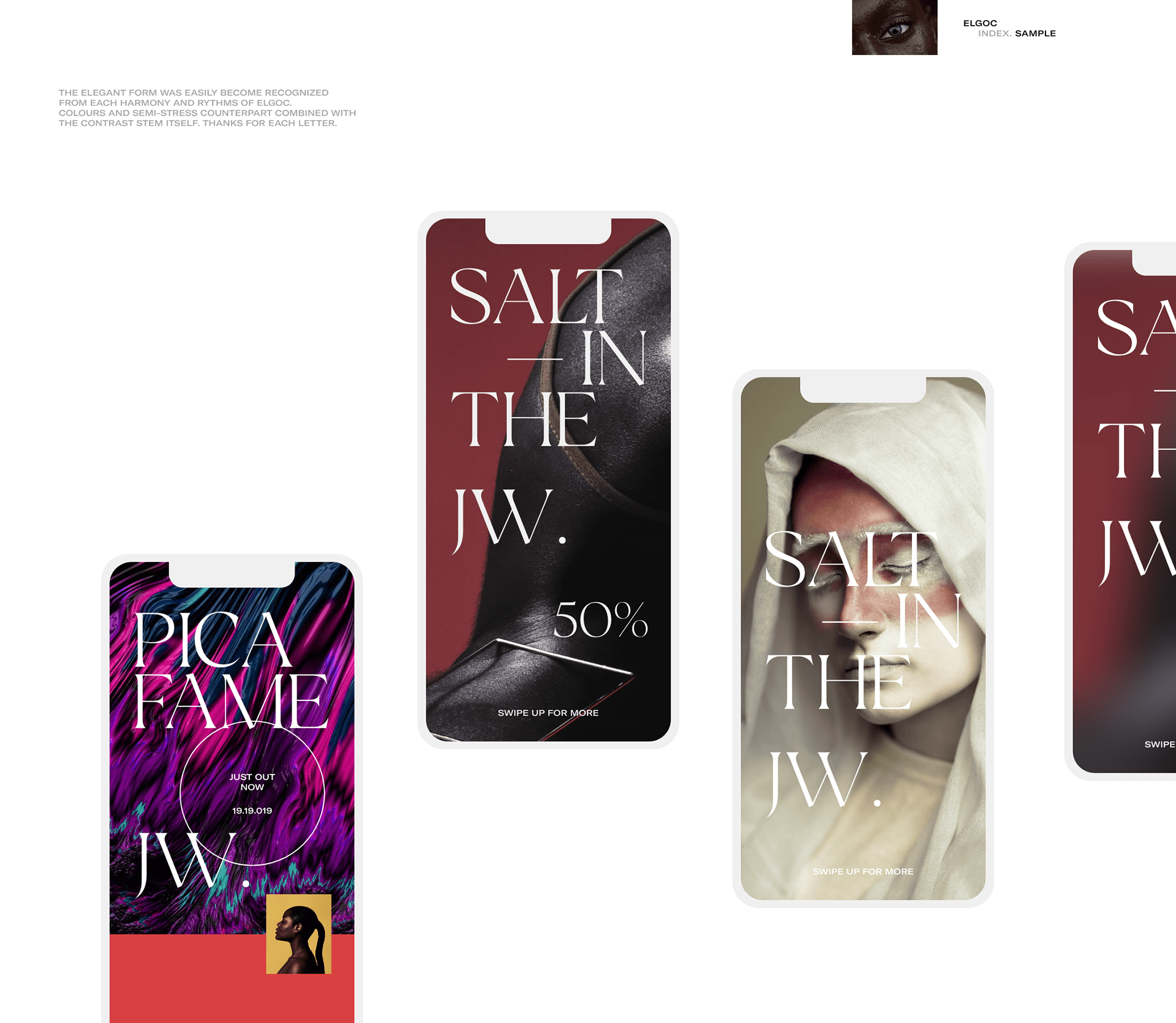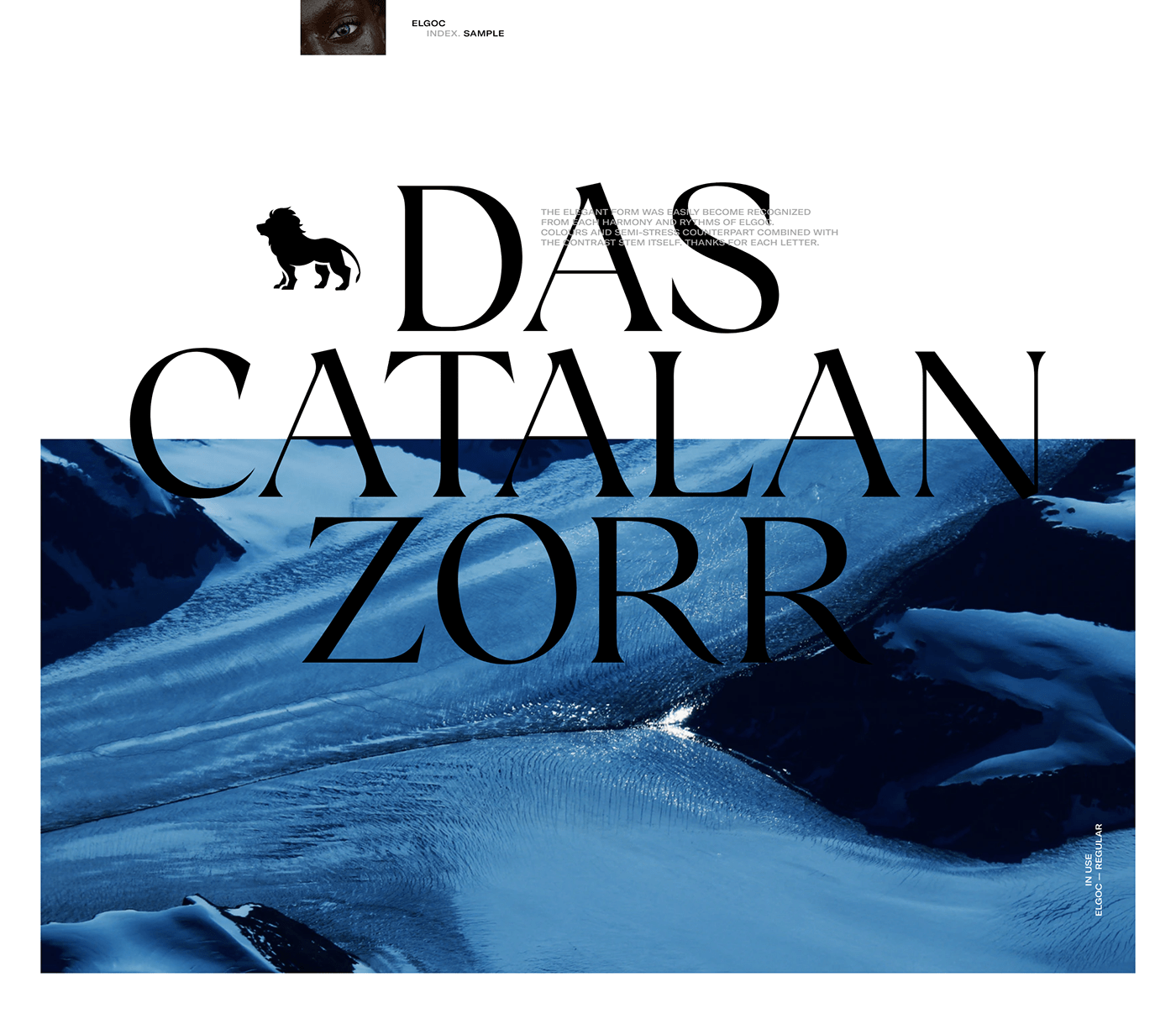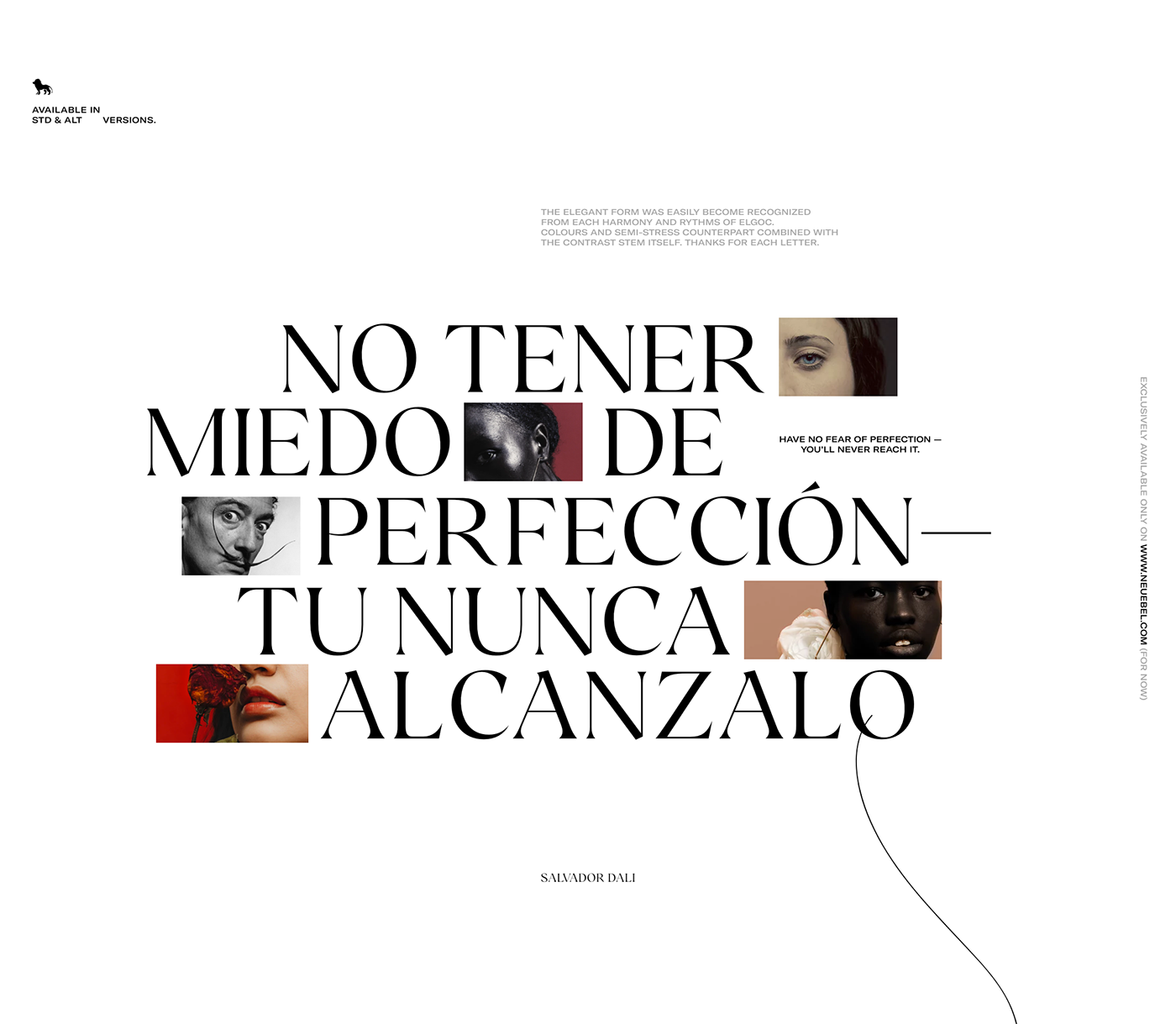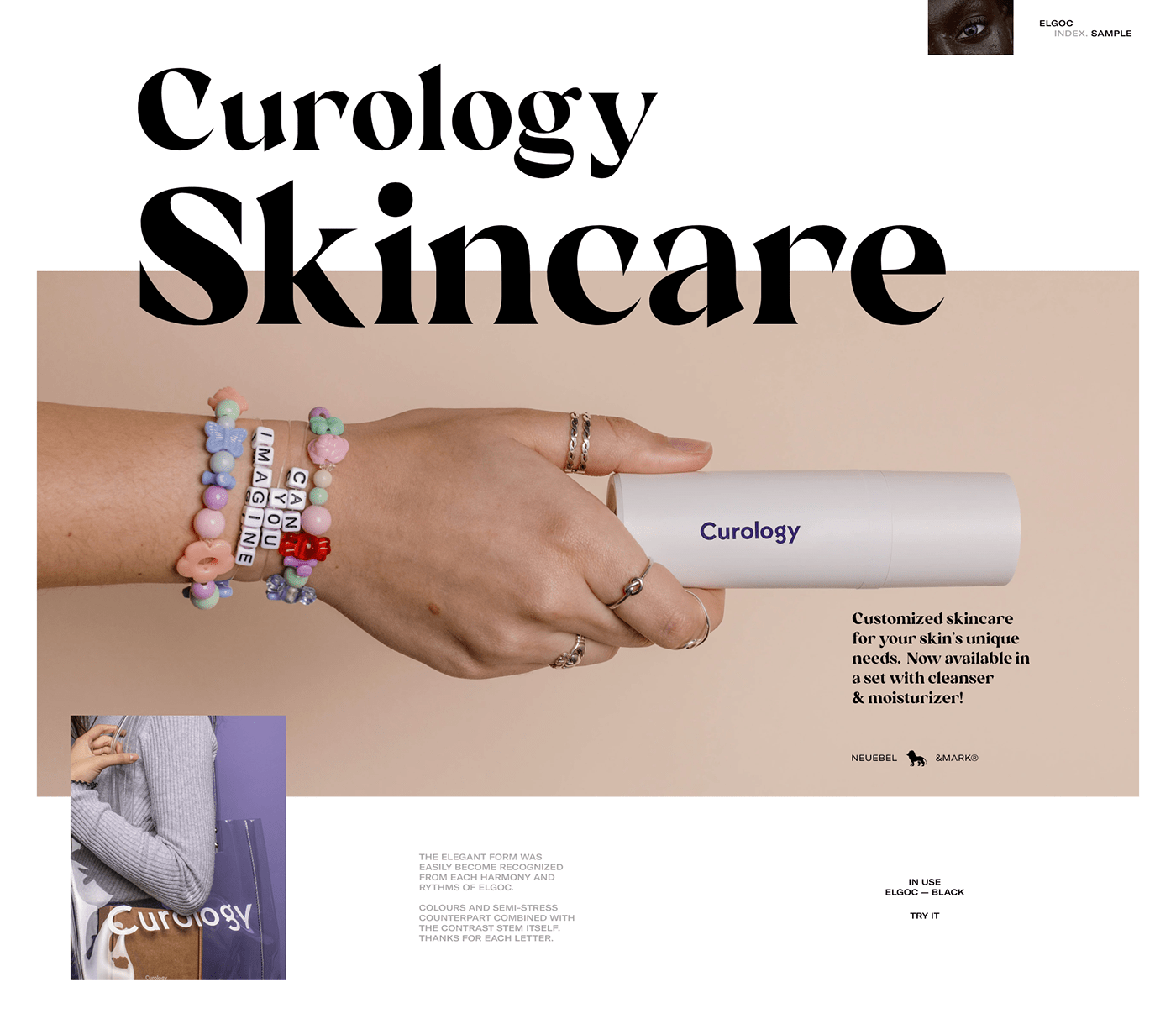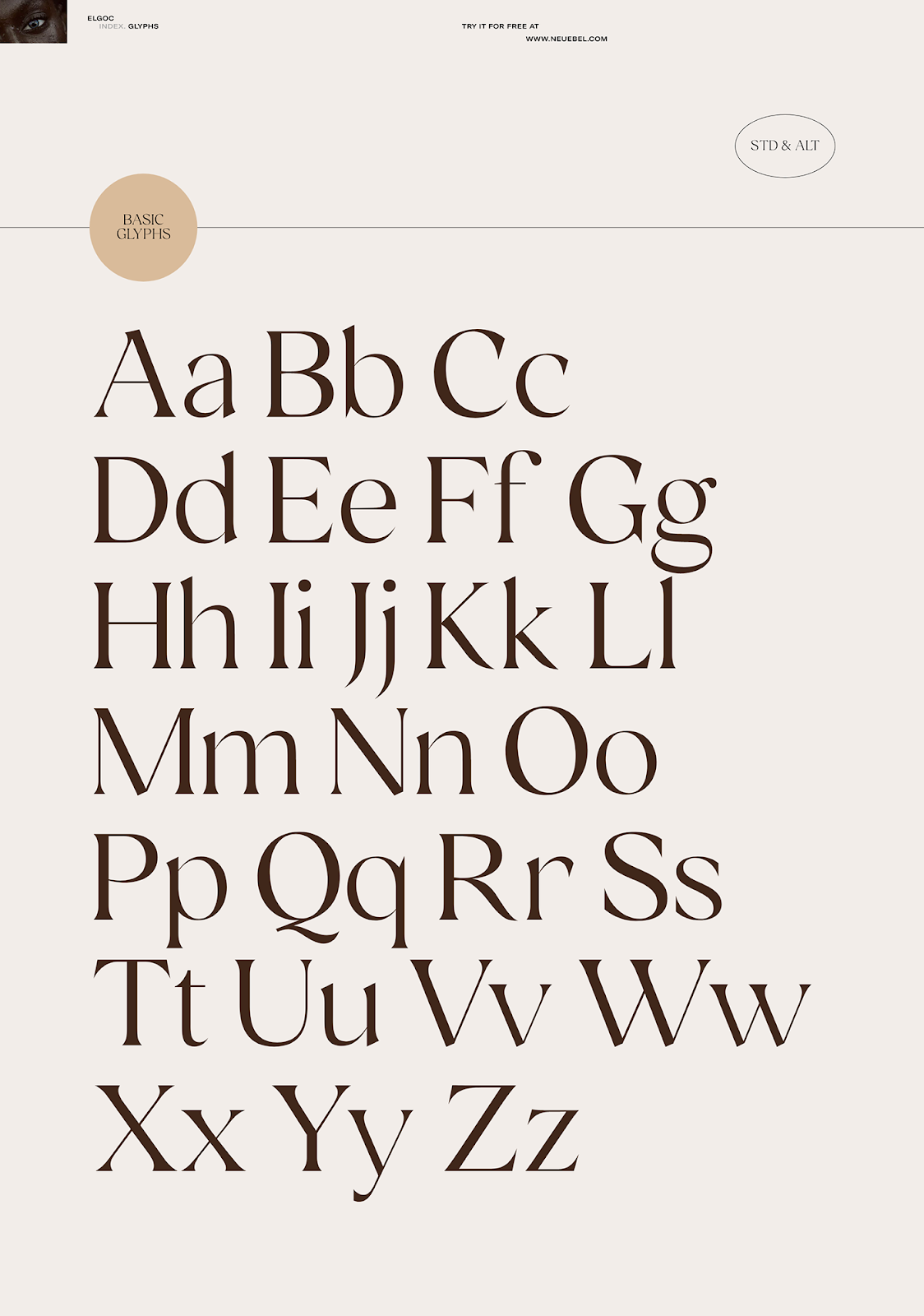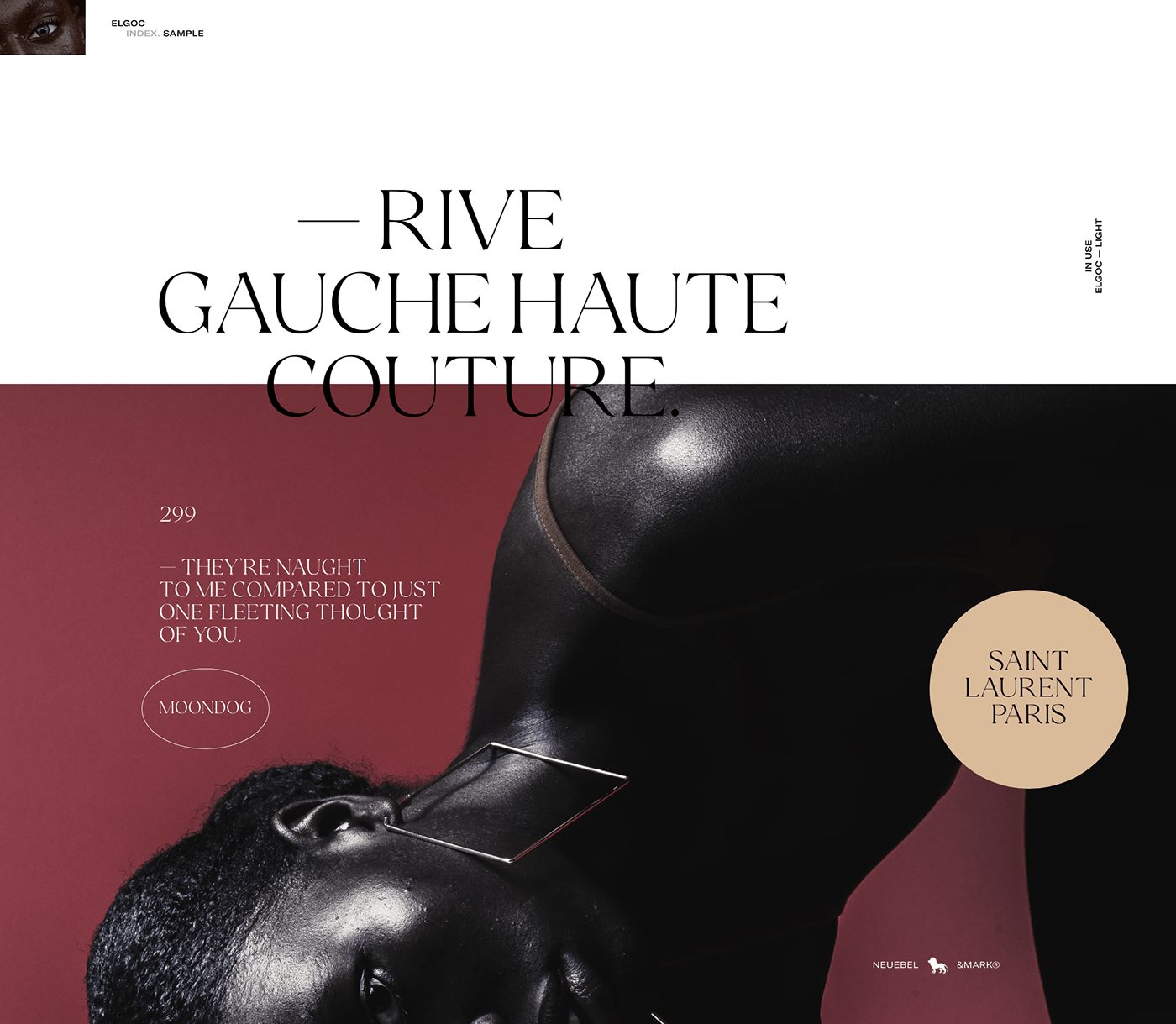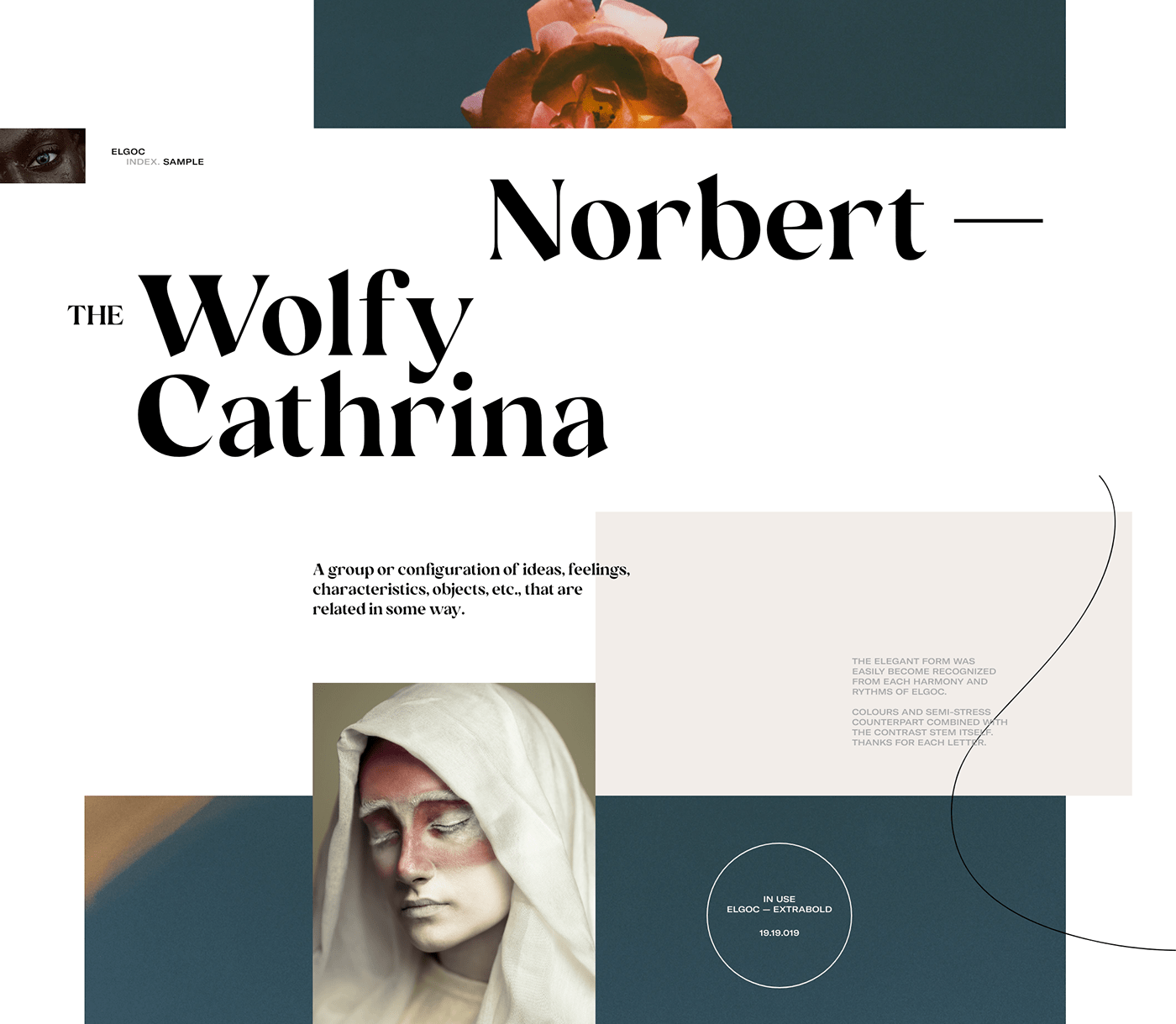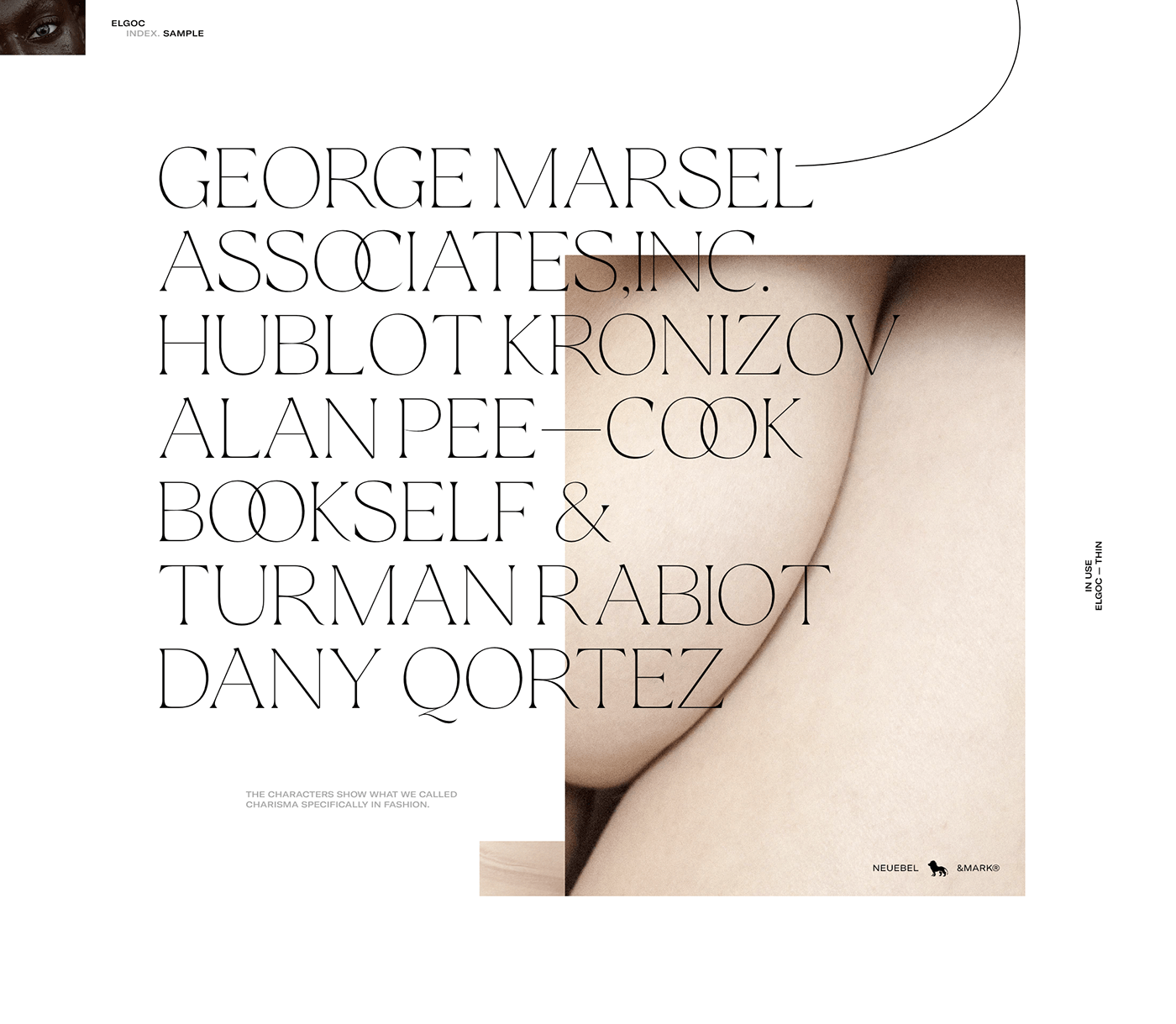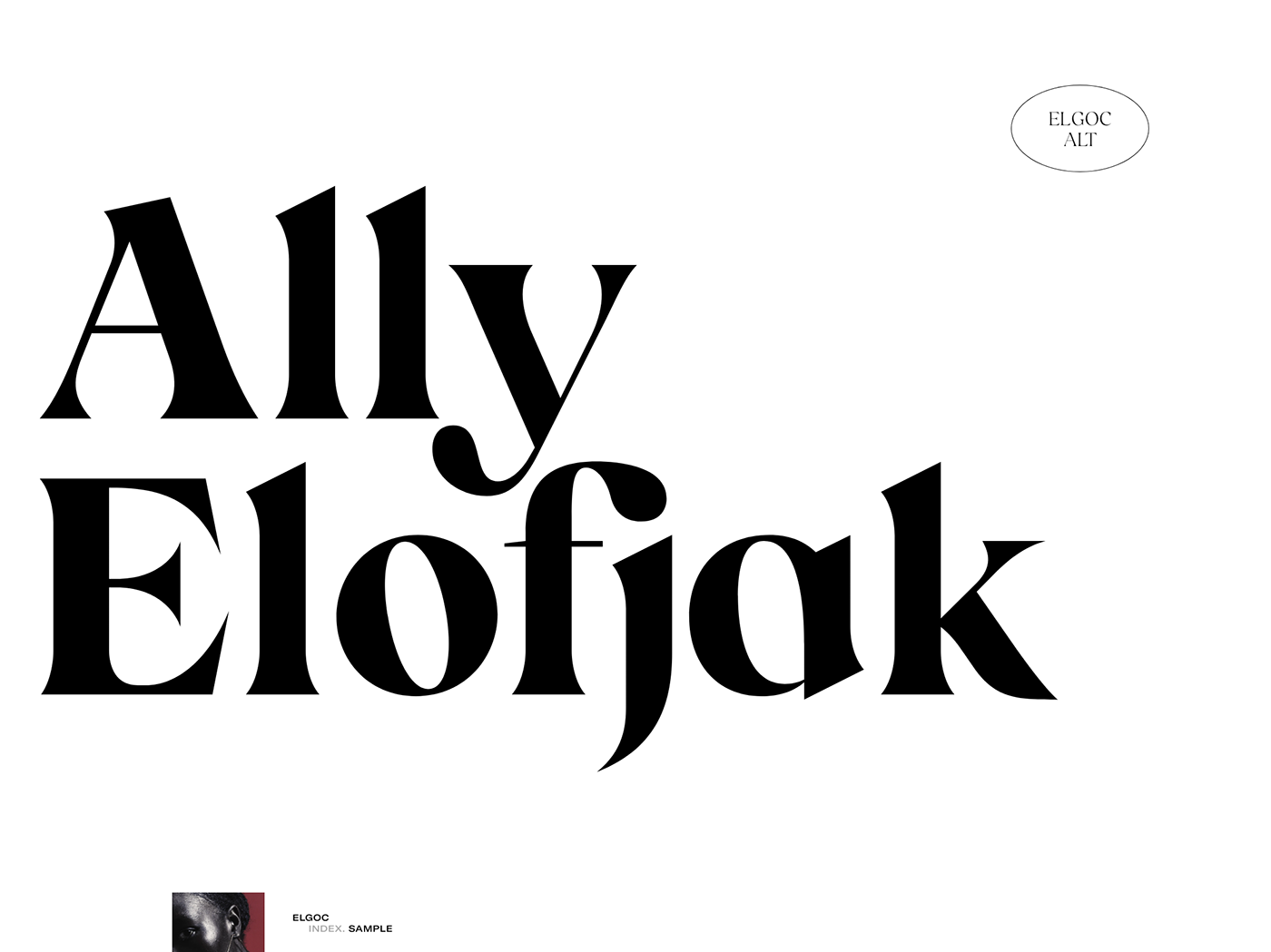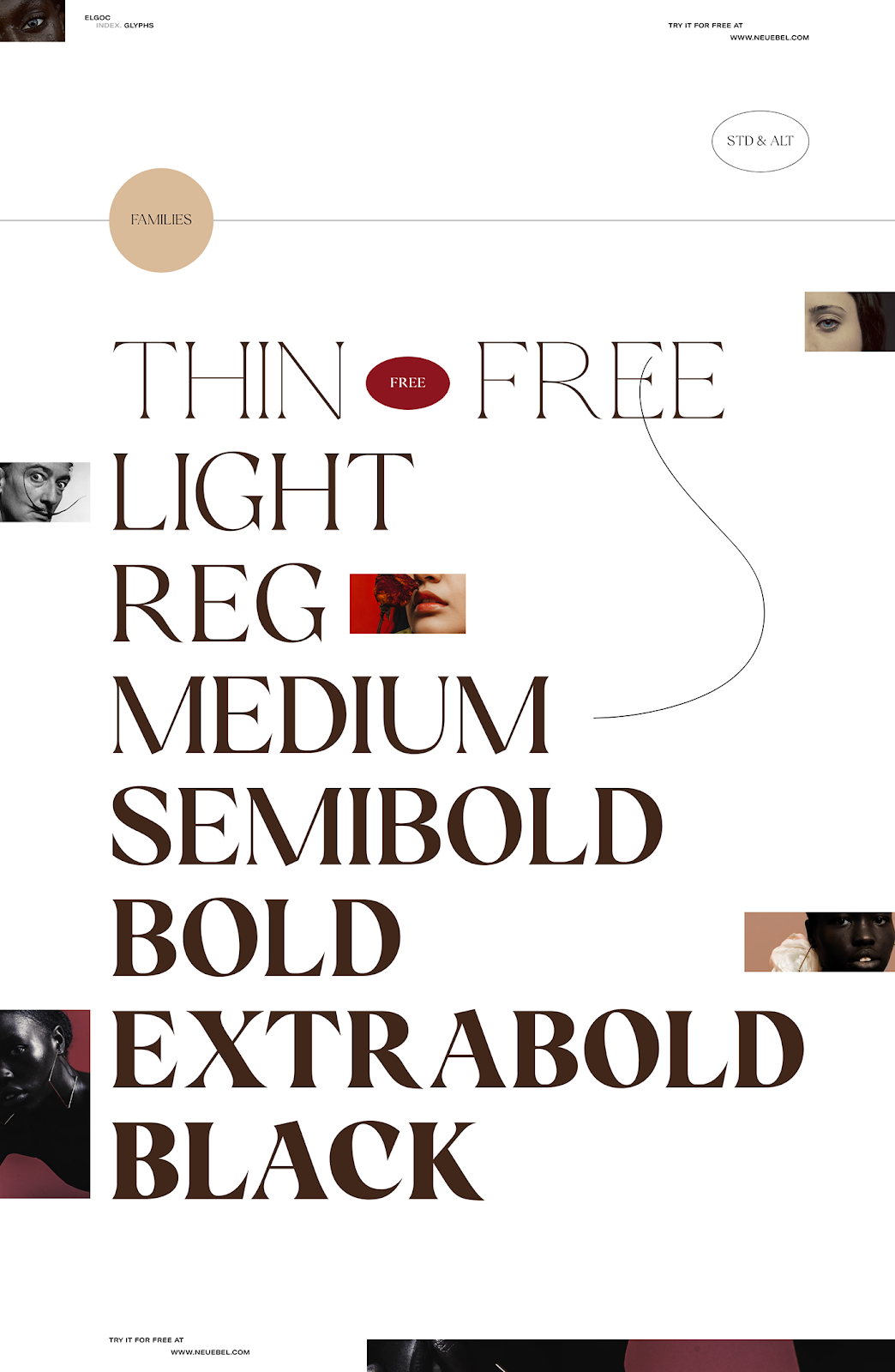
Neuebel® & Mark and Firman Suci Ananda shared an awesome typography project on their Behance profile. The project is about their new typeface called Elgoc, which is a serif display font with a beautiful form, strong contrast and elegant look. If you look at the editorial piece they created to feature the typeface in use you will see how modern/fresh it looks. On top of that, they made the font available for free. Yes, you heard it right, you can download Elgoc for free and use it on your personal projects. If you need it for commercial purposes, there’s a link below.
Elgoc is a new born based on our unpublished serif "Blaak". The older brother of serif display series.